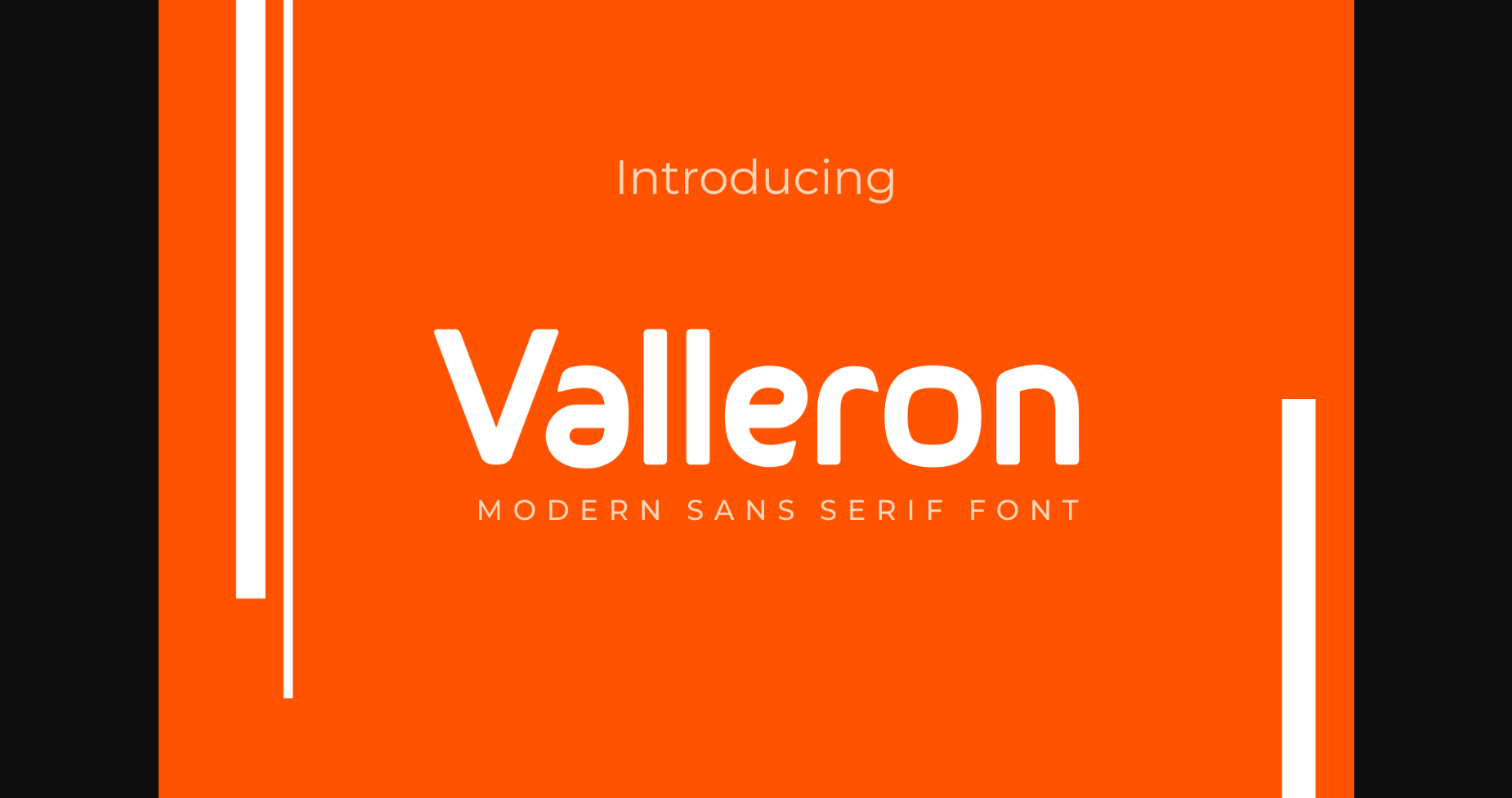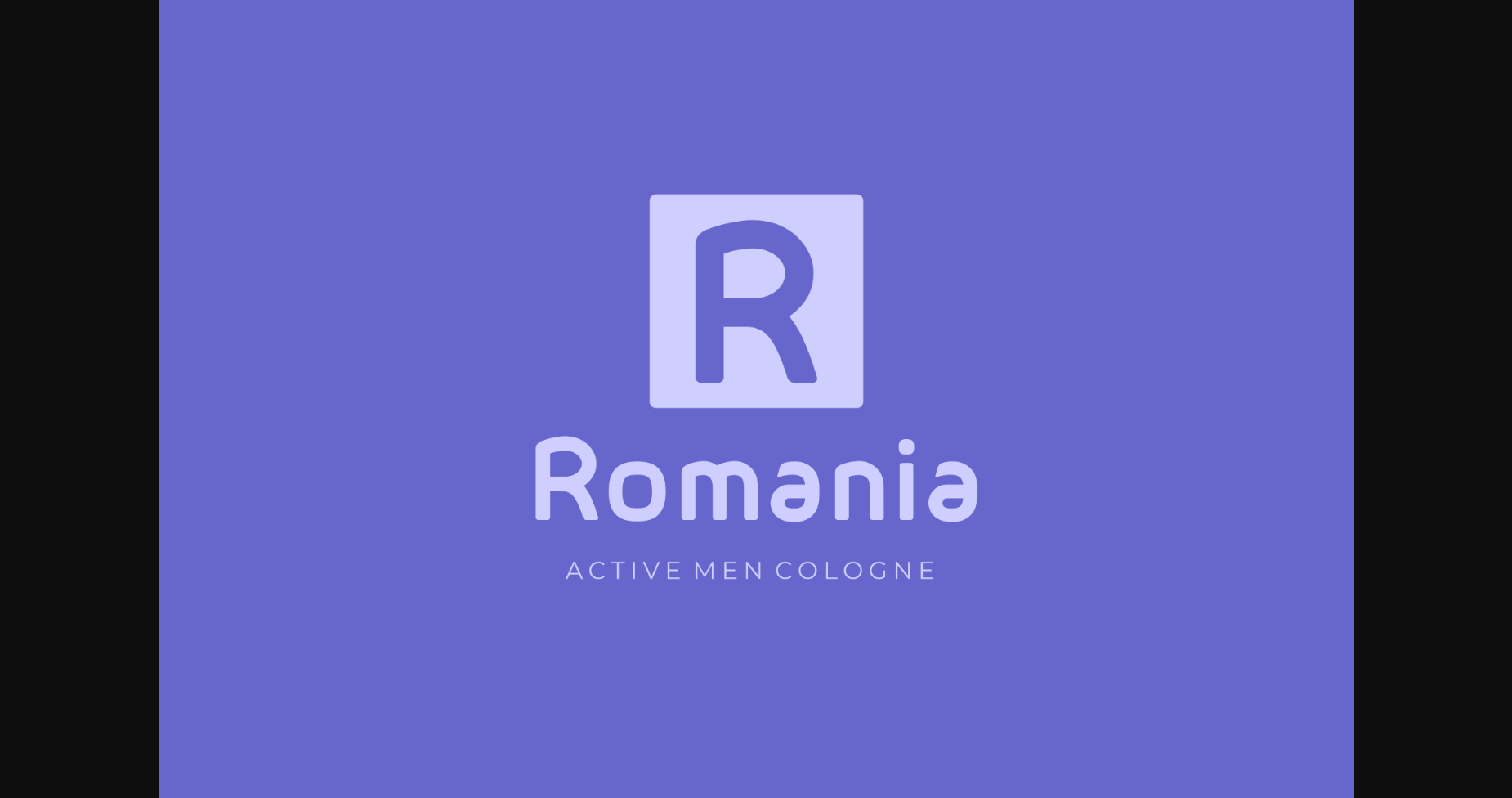
About Valleron Font
Valleron is a modern sans serif font with smooth touch, an elegant vibe, and luxurious feels. It is suitable for any design project.